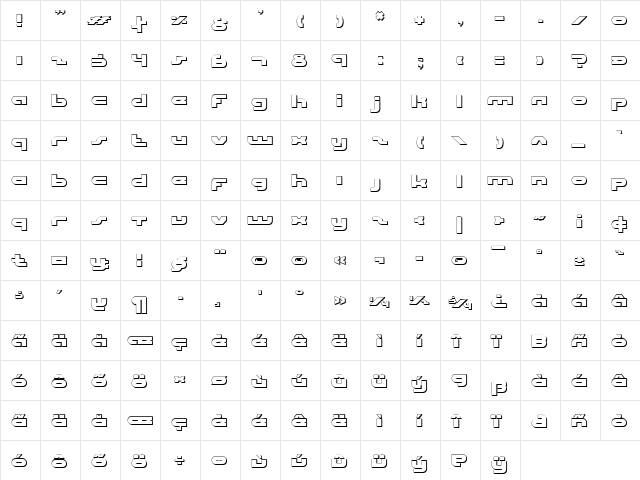
uni-sol outline outline
Design Context for uni-sol outline Typeface
uni-sol outline brings ornamental detail and strong personality to headlines and identities, where visual impact matters more than quiet functionality.
Font Pairing: Pair with a clean neutral sans-serif for body copy to let uni-sol outline's character lead without overwhelming the composition.
Pro Tip: Treat uni-sol outline as the centrepiece of your typographic hierarchy. One strong heading set in a decorative face can carry an entire layout.